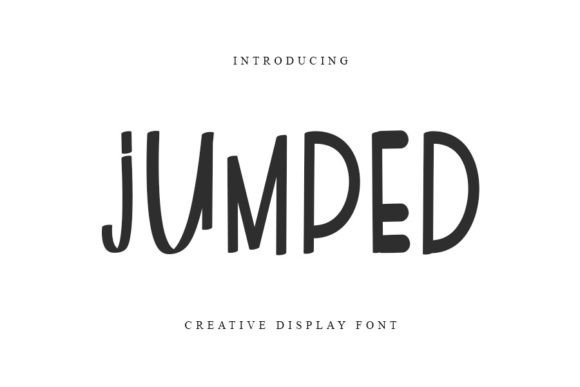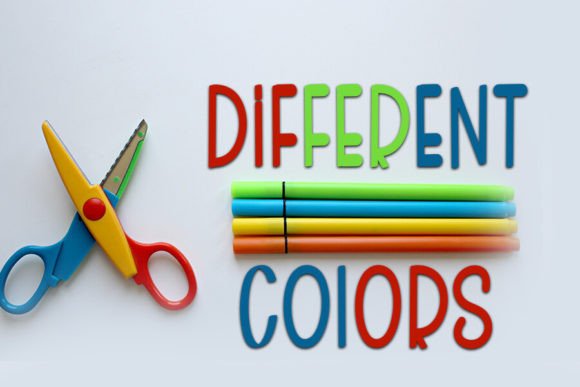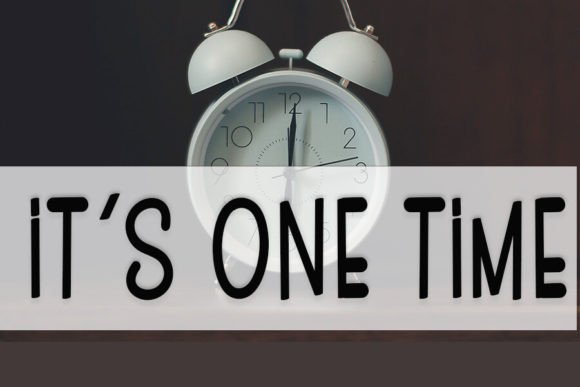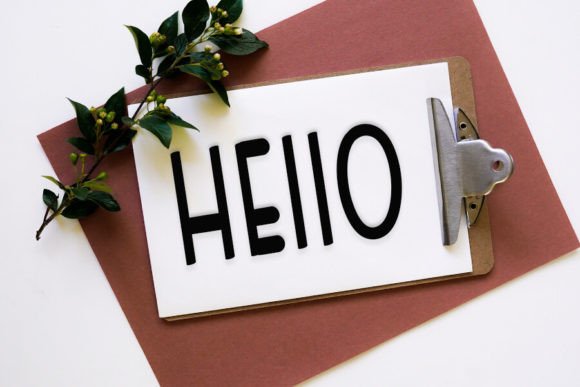
Jumped Font: A Playful Handwritten Font for DIY & Cricut Projects
About the Jumped Font
Explore the possibilities with Jumped Font, a font that offers both beauty and functionality. Jumped is a fun and quirky handwritten font. Whether you’re looking for fonts for Instagram or cute fonts for DIY projects, this typeface will turn any creative idea into a true piece of art!
Jumped excels in short, impactful applications such as logos, headlines, and social media graphics where its playful nature shines. It’s ideal for brands targeting a young, creative audience or projects with a fun, informal tone. Avoid using Jumped for large blocks of text or body copy; its handwritten style lacks the legibility needed for extended reading.
Pairing Jumped with a clean sans-serif like Open Sans for body text creates a strong visual contrast, balancing the handwritten informality with a modern, readable element. Alternatively, a classic serif like Garamond can add a touch of sophistication and counter Jumped’s casual energy, resulting in a more refined, yet still engaging overall design.
Jumped’s core personality is undeniably playful and energetic, but maintains a friendly approachability. It’s best suited for brands that emphasize youthfulness, creativity, and a handmade aesthetic. Avoid using it for projects requiring a serious or formal tone.
Jumped Font Usage Examples
Jumped Font Example